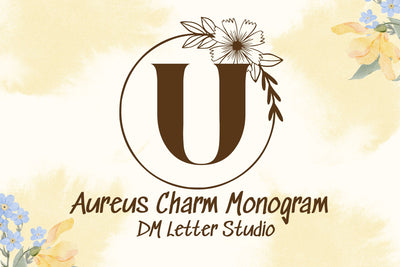
Aureus Charm Monogram
Aureus Charm Monogram – Elegant Luxury Serif Font
Aureus Charm Monogram is a sophisticated monogram serif font designed to radiate timeless elegance and golden refinement. With its stately uppercase characters and ornamental finesse, this font is ideal for luxury branding, wedding identities, upscale packaging, and monogram-focused design. Inspired by classic Roman forms and modern minimalism, Aureus Charm delivers prestige and charm in perfect balance.
Elegant Monogram Style: Designed with graceful, high-contrast strokes and classical proportions.
Luxury Serif Letterforms: Bold uppercase letters that feel regal and refined.
Ornamental Potential: Perfect for initials, logos, personal branding, and decorative typography.
Ideal For: Wedding monograms, luxury product labels, fashion branding, invitations, boutique logos, and stationery.